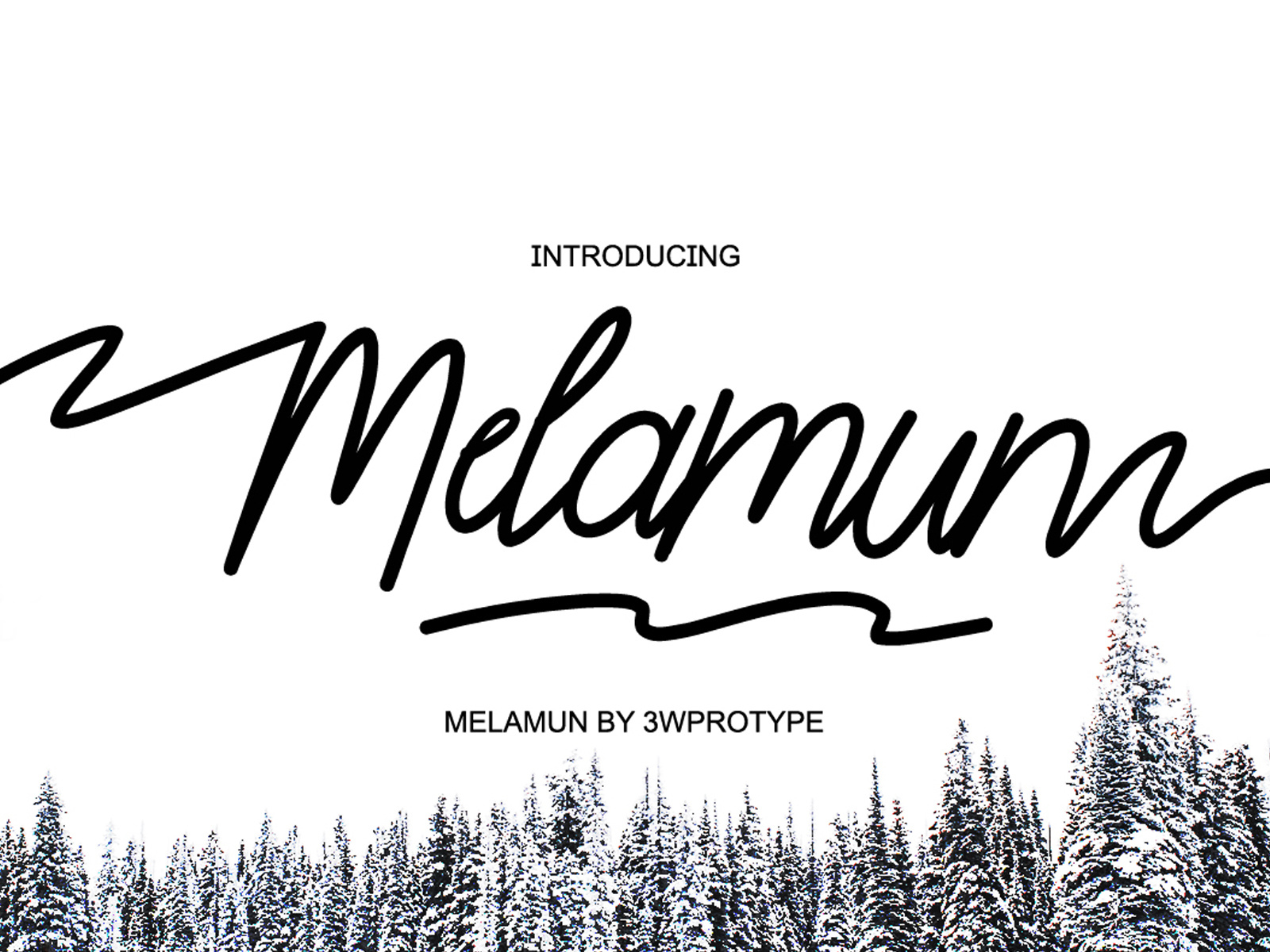
Melamun FREE FONT
Introducing the Melamun regular font, which we created especially for branding, invitation cards, business, quotes and other needs. It's perfect for designers looking for a font that's naturally shaped like handwriting.